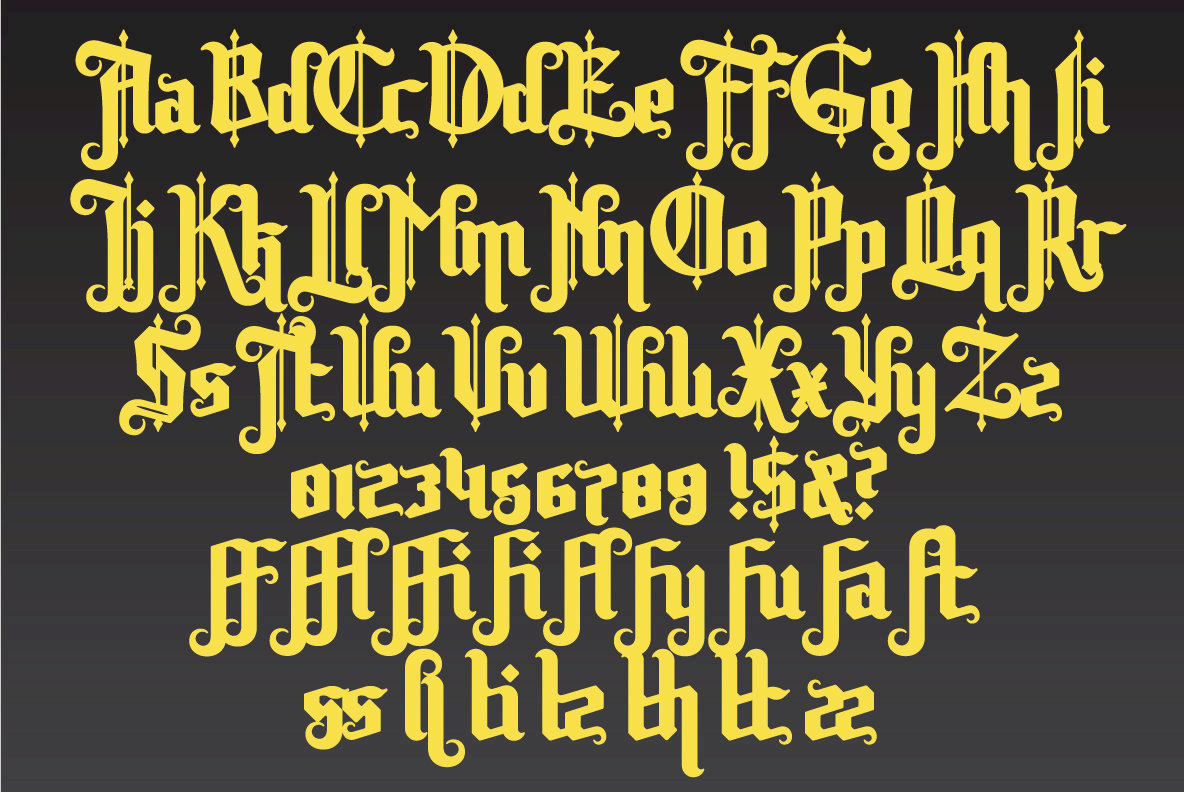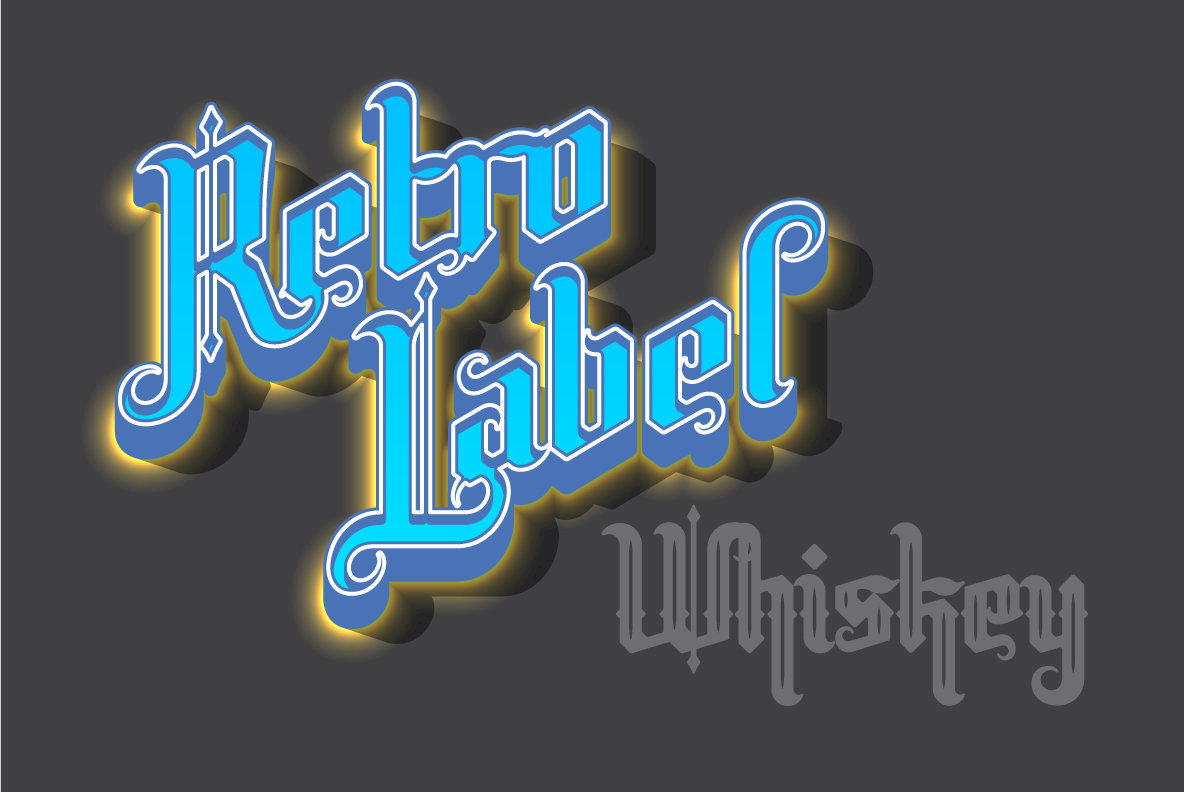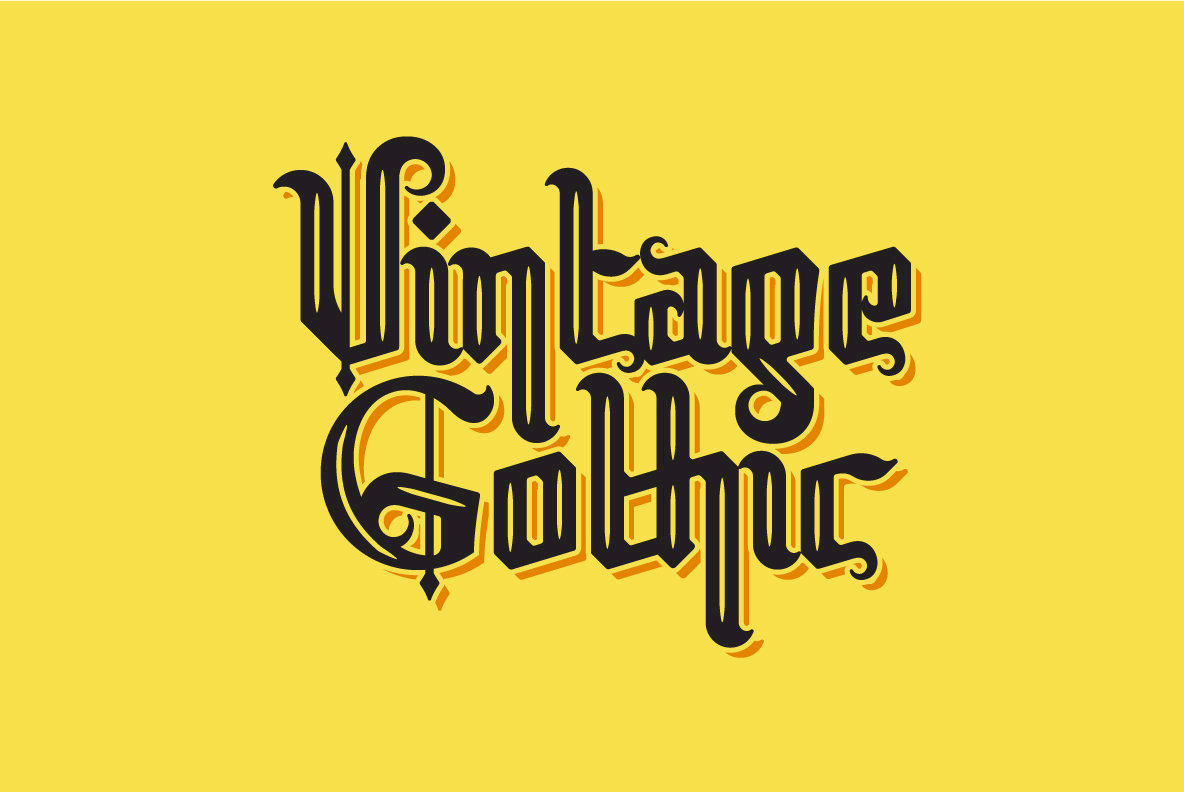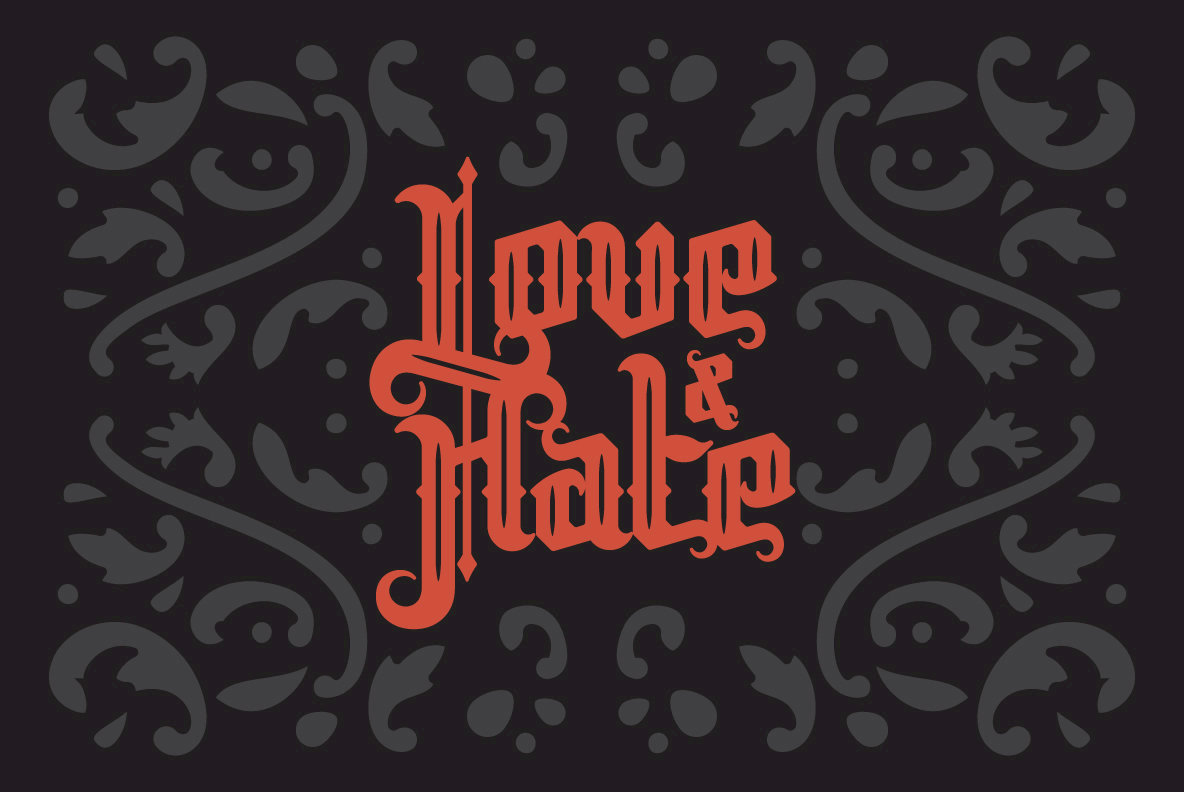
Moustache Font
Hello! Presenting a vintage gothic typeface Moustache. With classic, elegant, vintage, and clean feel. Come with 2 styles ornate one and simple bold style. Also with some ligatures to adding more aesthetics of your designs.